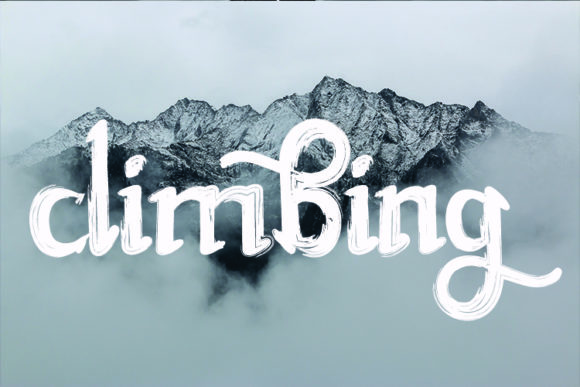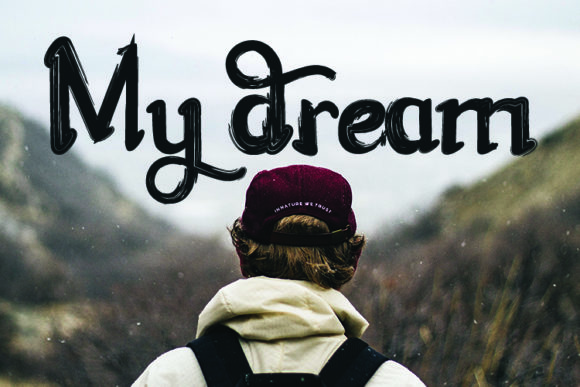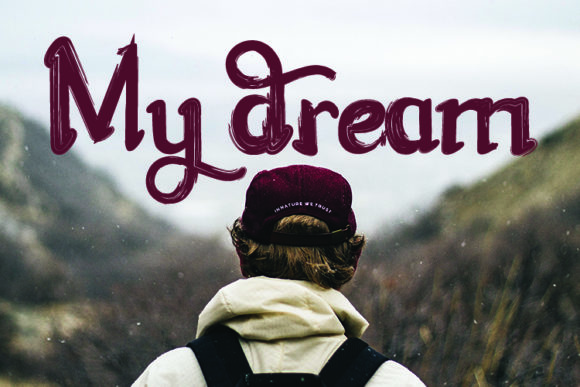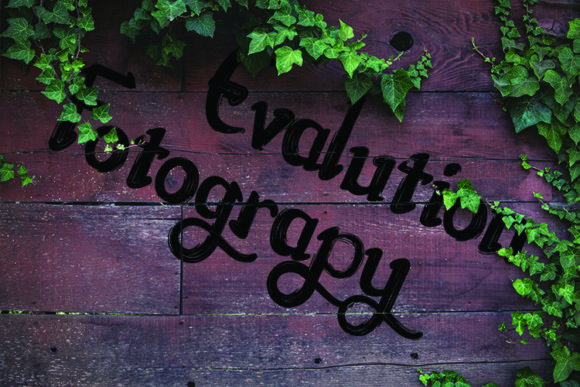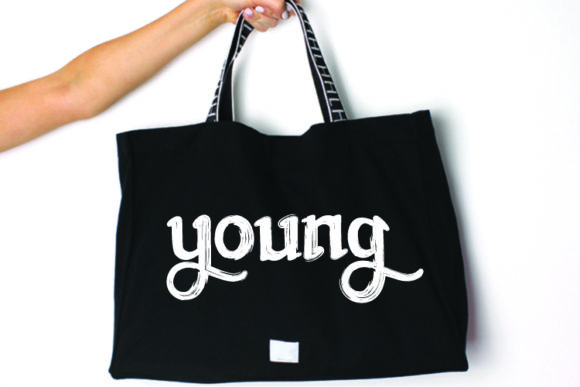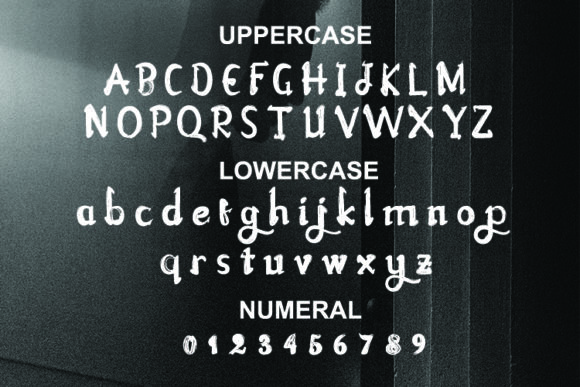
Abigdon Font: A Casual Display Font for Creative Projects
Are you looking for a font that can add a personal touch to your designs? Look no further than Abigdon Font. This casual display font is created by using a dry brush pen, giving it a unique and handwritten feel. In this article, we’ll explore the features and benefits of Abigdon Font, and how it can be used in a variety of creative projects.
What is Abigdon Font?
Abigdon Font is a casual display font that is designed to mimic the look of handwriting with a dry brush pen. It has a relaxed and informal feel, making it perfect for designs that require a personal touch. The font is suitable for a wide range of projects, including logos, product designs, labels, watermarks, social media posts, apparel, invitations, signboards, sports clubs, motor/car designs, and special events.
Features of Abigdon Font
Abigdon Font has several features that make it a great choice for designers and crafters. Some of its key features include:
- Handwritten look: Abigdon Font has a unique handwritten look that is achieved by using a dry brush pen. This gives it a personal and informal feel that is perfect for designs that require a touch of personality.
- Casual and relaxed: The font has a casual and relaxed feel, making it perfect for designs that require a laid-back vibe.
- Versatile: Abigdon Font is versatile and can be used in a wide range of projects, from logos and product designs to social media posts and invitations.
- Easy to read: Despite its handwritten look, Abigdon Font is easy to read and can be used for both headings and body text.
Benefits of Using Abigdon Font
There are several benefits to using Abigdon Font in your designs. Some of the benefits include:
- Unique look: Abigdon Font has a unique look that will set your designs apart from others. Its handwritten feel gives it a personal touch that is hard to replicate with other fonts.
Project Ideas Using Abigdon Font
Abigdon Font is versatile and can be used in a wide range of projects. Here are some project ideas to get you started:
- Logos: Use Abigdon Font to create a unique and memorable logo for your business or brand.
- Product designs: Add a personal touch to your product designs with Abigdon Font.
- Labels and watermarks: Use Abigdon Font to create labels and watermarks that have a personal touch.
- Social media posts: Add a personal touch to your social media posts with Abigdon Font.
- Apparel: Use Abigdon Font to create custom apparel with a personal touch.
- Invitations: Create unique and personalized invitations with Abigdon Font.
- Signboards: Use Abigdon Font to create eye-catching signboards that have a personal touch.
- Sports club designs: Create custom designs for your sports club with Abigdon Font.
- Motor/car designs: Add a personal touch to your motor or car designs with Abigdon Font.
- Special events: Use Abigdon Font to create custom designs for special events such as weddings, birthdays, and anniversaries.
| Font Name | Abigdon Font |
| Author | Rezastudio |
Abigdon Font is a casual display font that is perfect for designers and crafters who want to add a personal touch to their designs. Its unique handwritten look and versatile nature make it suitable for a wide range of projects. With its ease of use and cost-effectiveness, Abigdon Font is a great choice for anyone looking to add a personal touch to their designs.